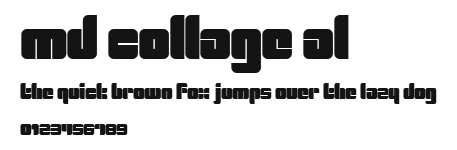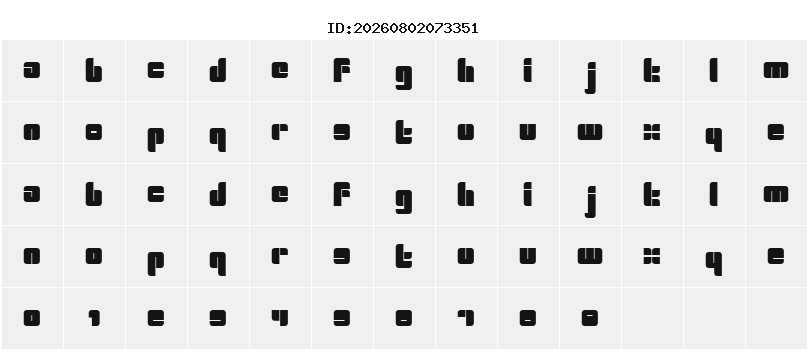
• Font Name: MD Collage AL
• Full Font Name: MD Collage AL
About MD Collage AL.ttf
MD Collage AL.ttf is a modern, elegant sans-serif font designed for ultimate readability and visual harmony. Perfect for branding, headlines, web design, and print materials.